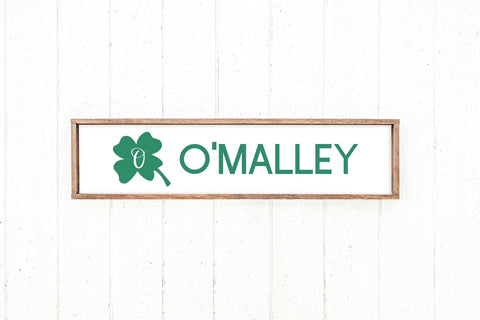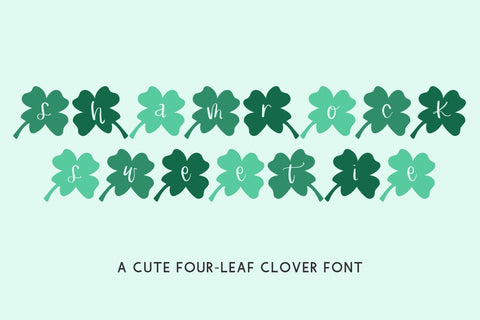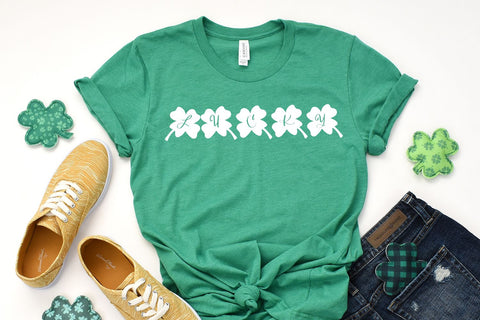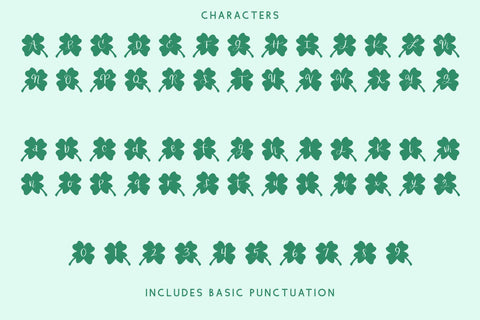
Shamrock Sweetie Font
Meet Shamrock Sweetie, an adorable St. Patrick's Day themed font.
Shamrock Sweetie includes:
- full upper + lowercase characters
- numbers + punctuation
Shamrock Sweetie  does *not* include accented characters.